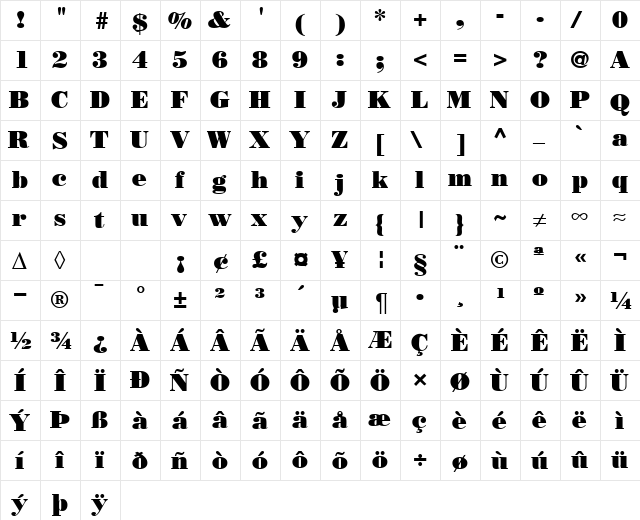
BodoniPosterUltra Regular
Design Context for BodoniPosterUltra Typeface
BodoniPosterUltra is a composed and adaptable typeface that performs quietly and consistently across a wide range of design contexts.